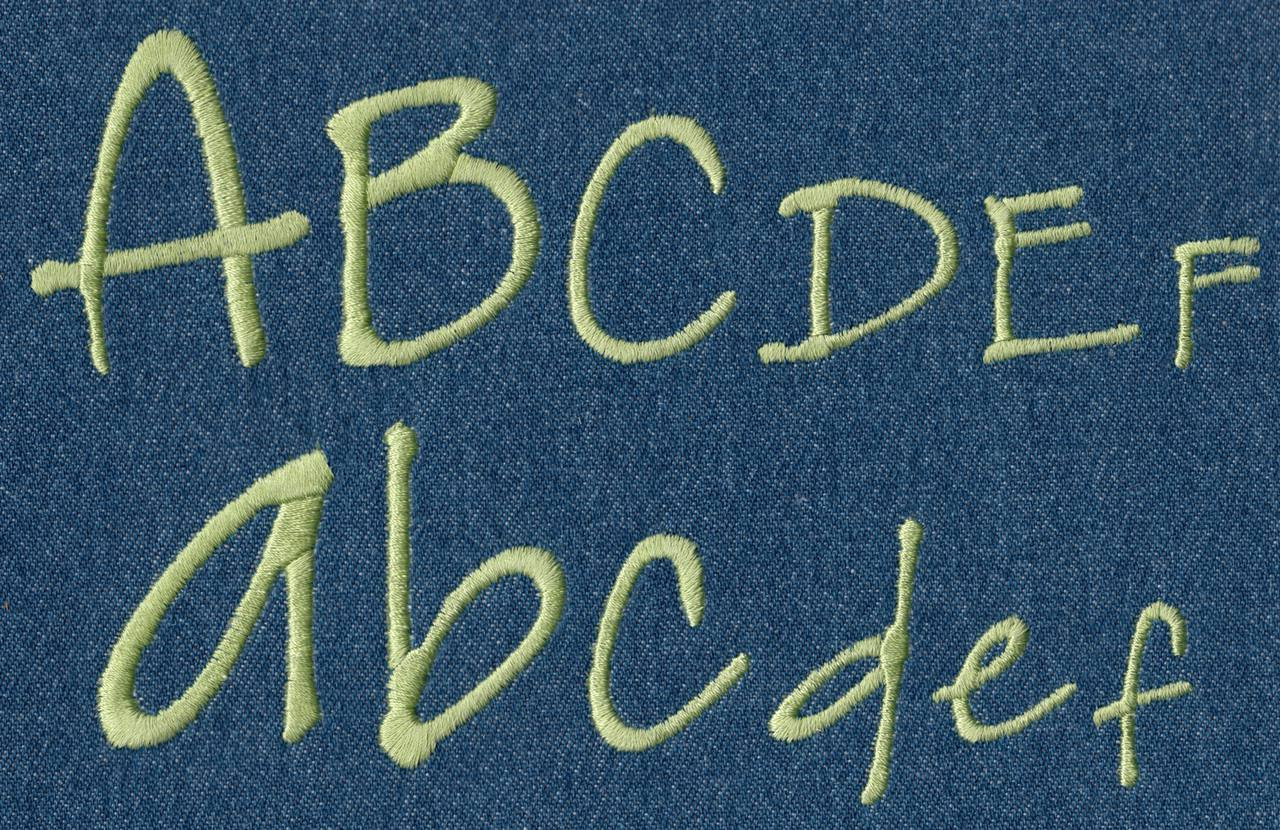
631 Jeans Font Satin
Jeans Font Satin comes in 0.75", 1.00", 1.25", 1.50", 1.75" and 2.00" heights based on the capital "A". All sizes finished in standard Satin Stitch. Includes uppercase letters, lowercase letters, numbers and six punctuation marks. Letter columns are intentionally designed with crooked/wobbled edges.